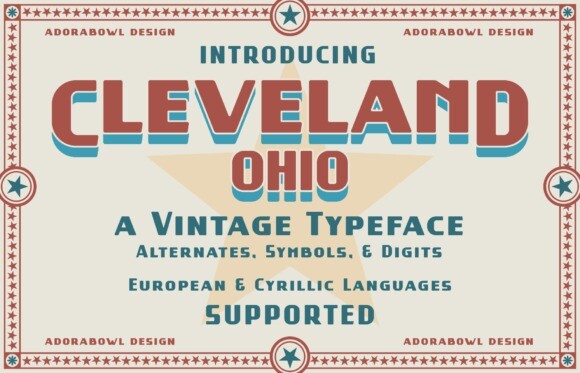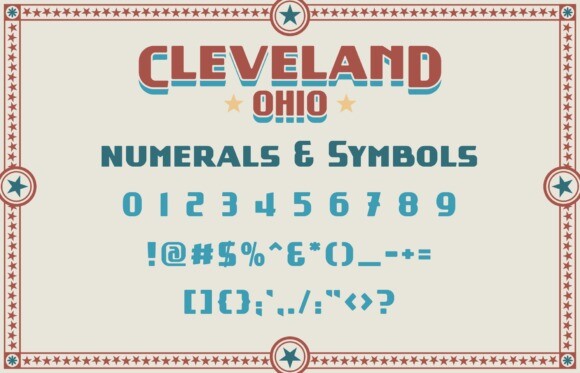
Cleveland Ohio Font
Cleveland Ohio Font is a sans serif display typeface made for all of your vintage branding and marketing needs. The font includes lowercase and uppercase versions as well as numerals and symbols.